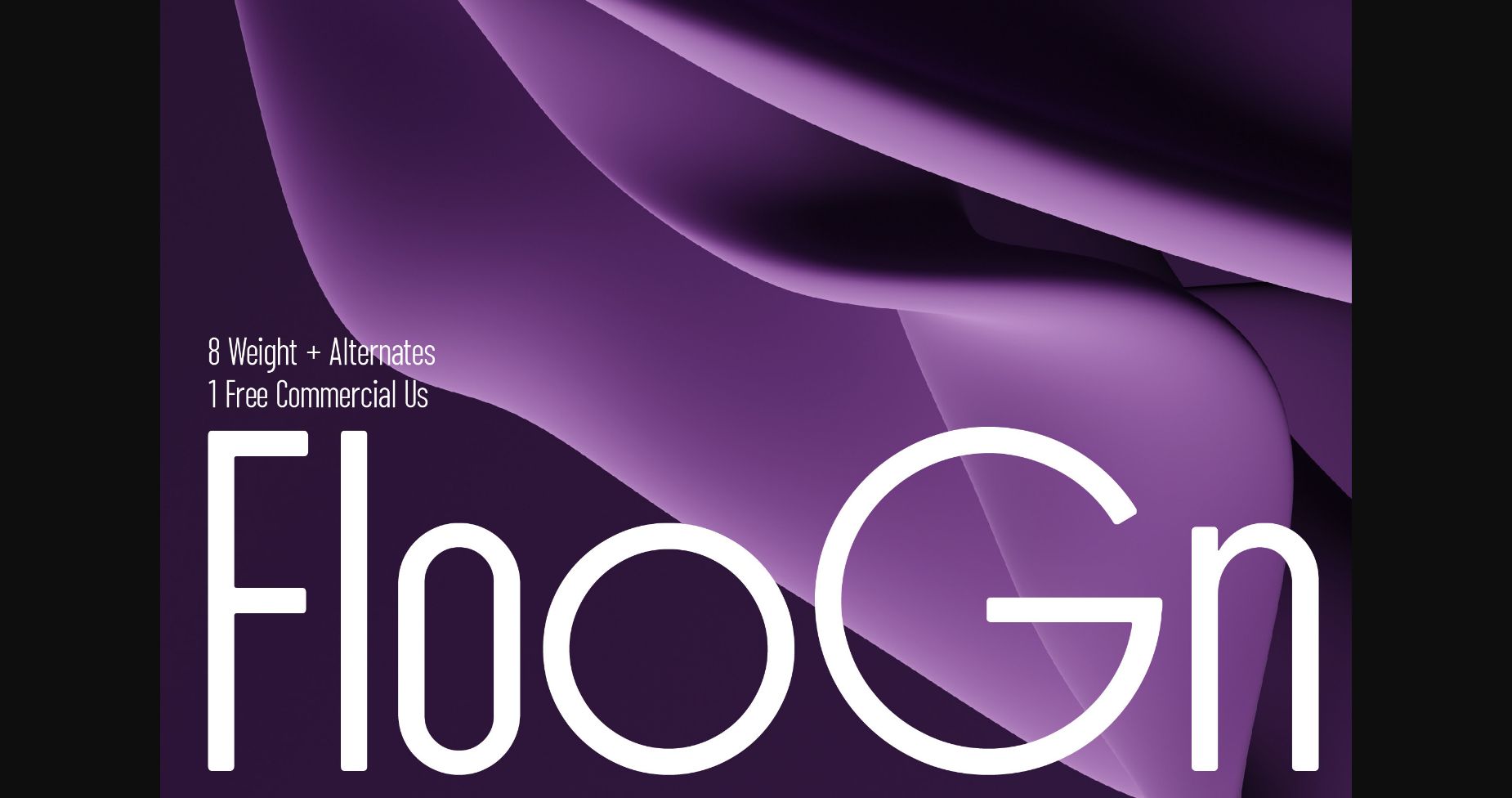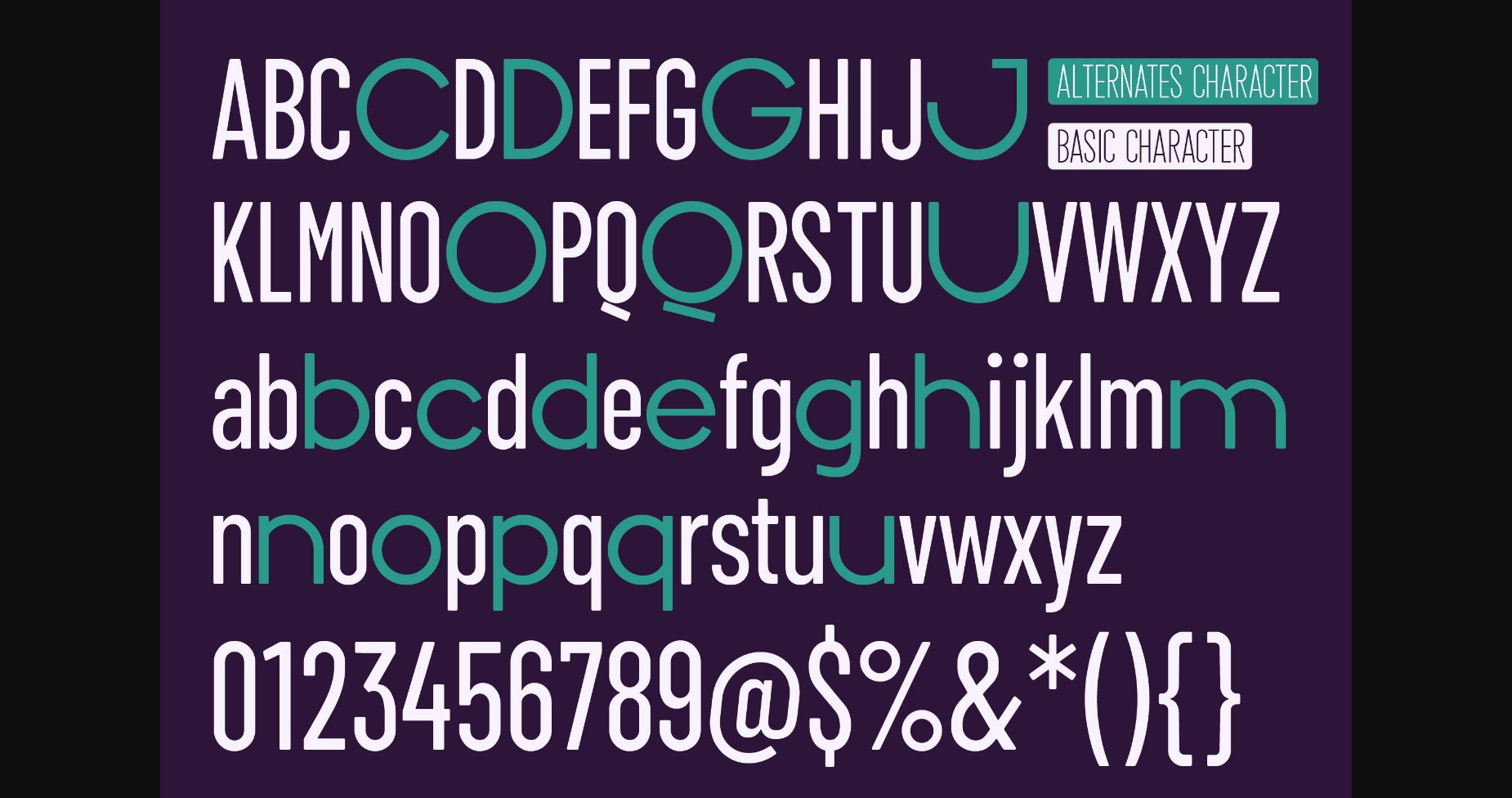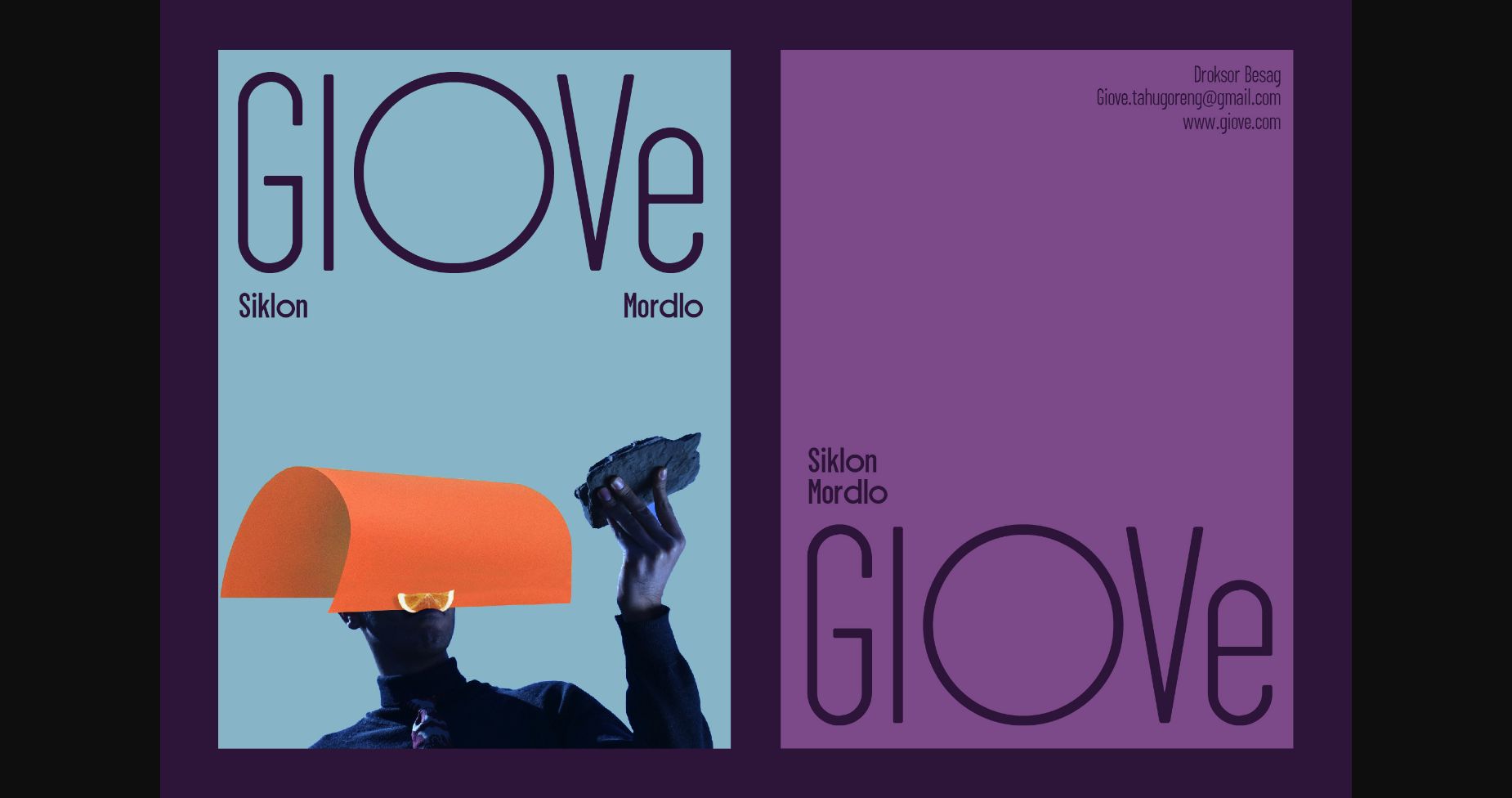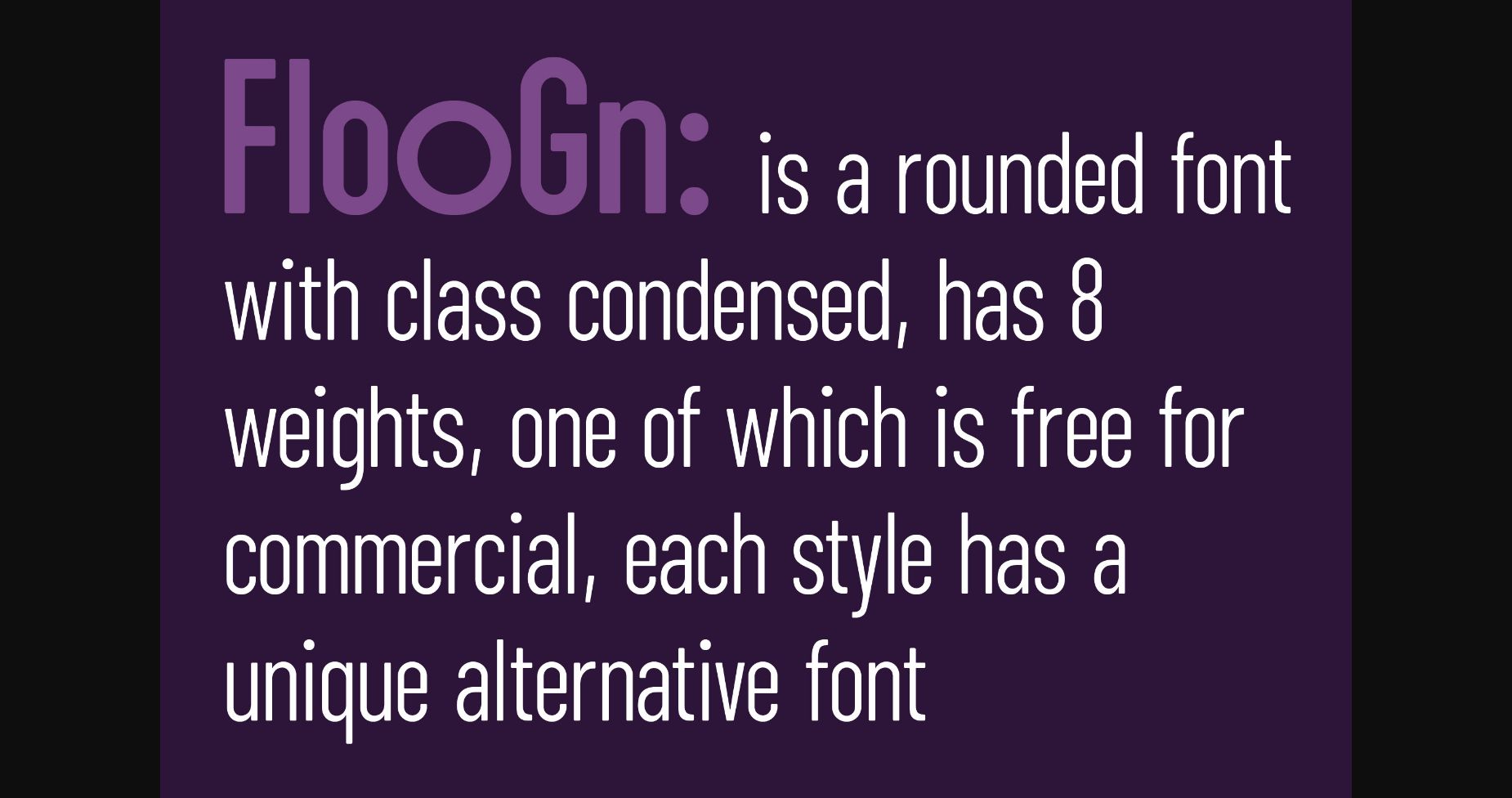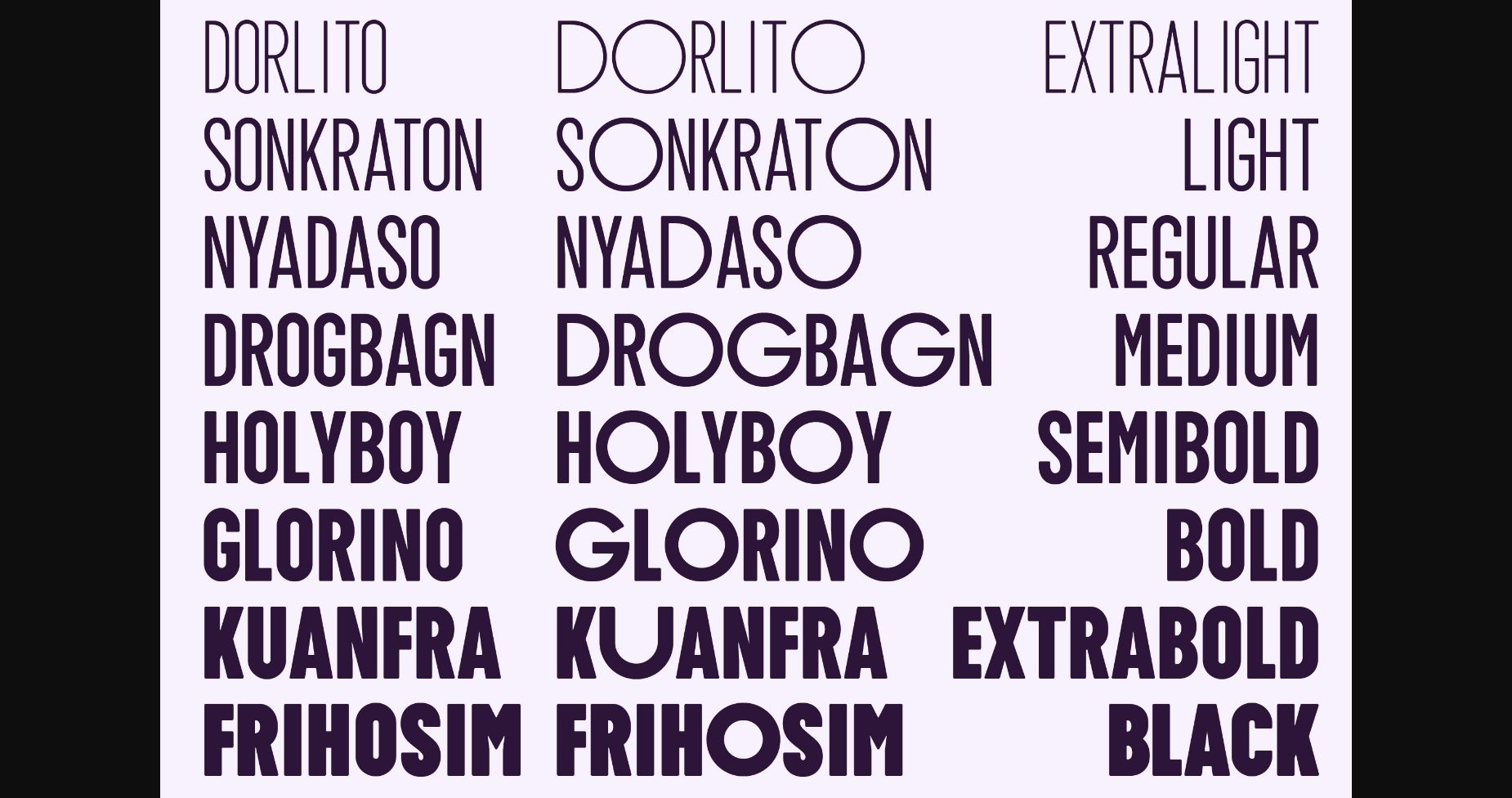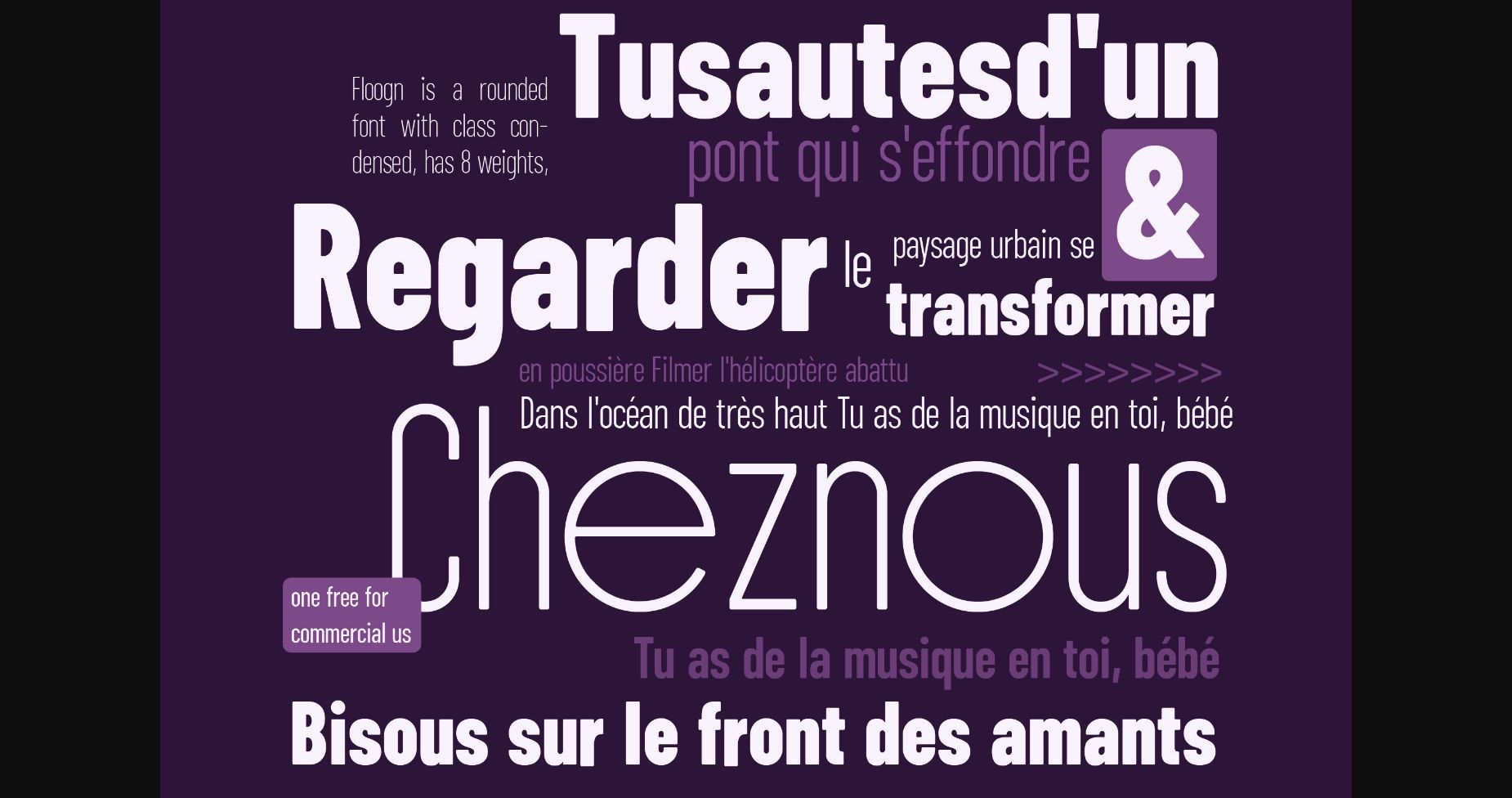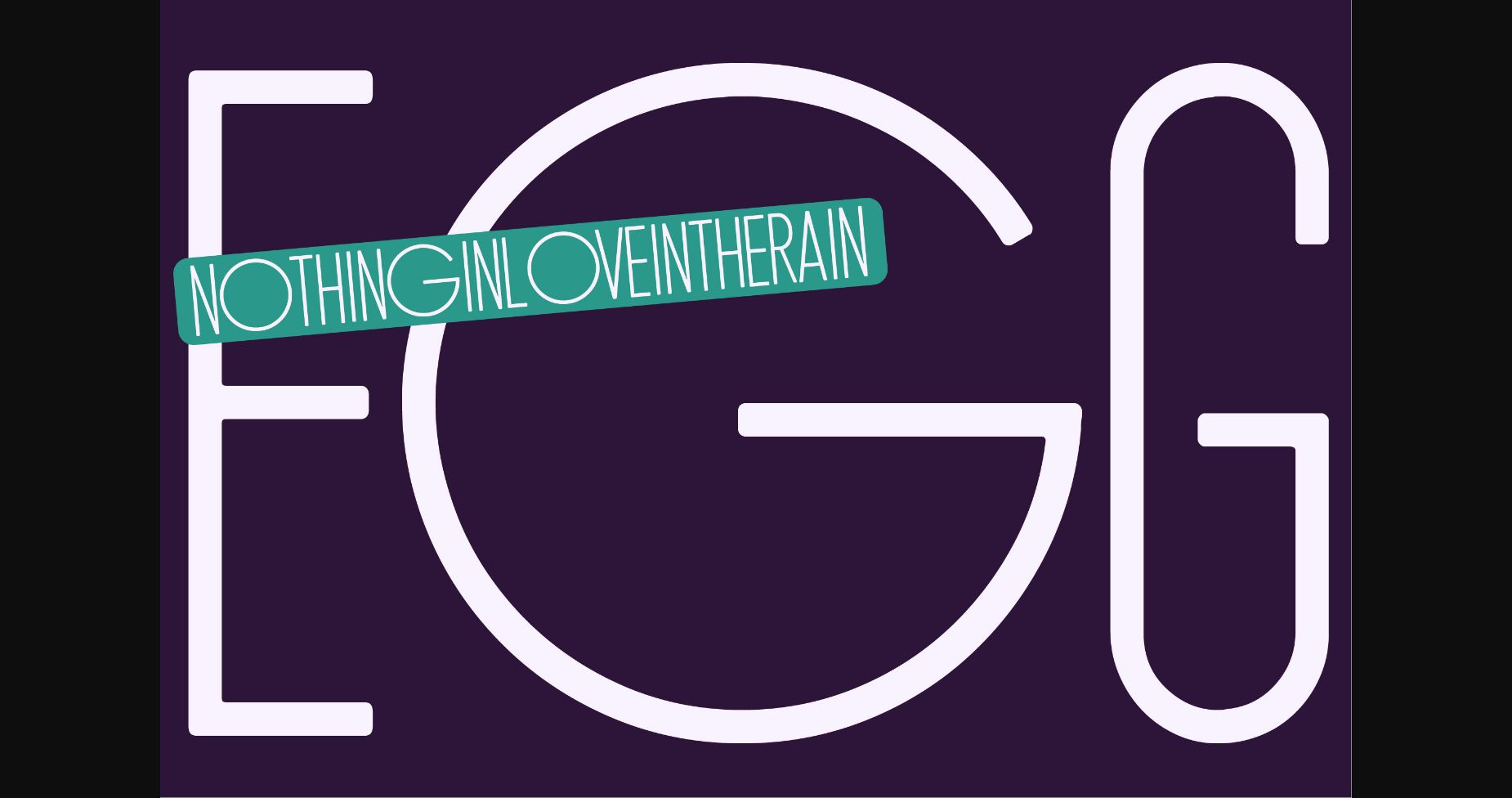
About Floogn Font
The new ZT Floogn font family, designed by Khaiuns and published by Zelowtype, is a modern, dense sans serif style with a rounded look. This font is characterized by its balanced proportions, uniform stroke width, and subtle variations in typeforms, giving it a distinctive look at all weights.
Due to the narrow shape of the ZT Floogn typeface, it is best applied to headlines and poster-sized typography, resulting in designs with a fresh, friendly personality.